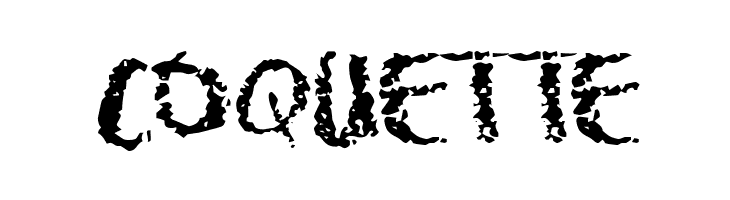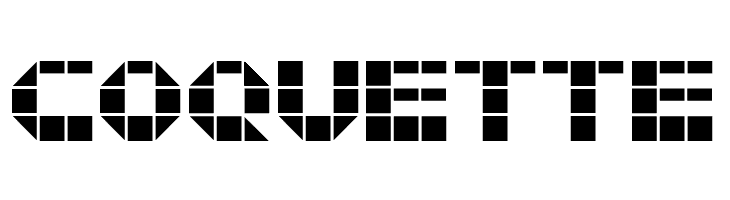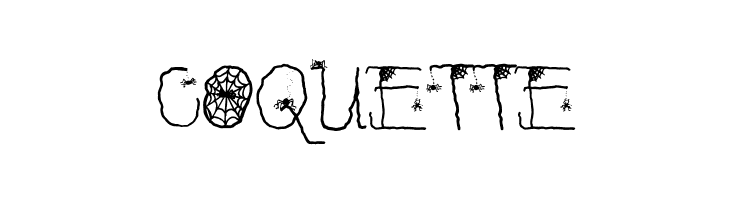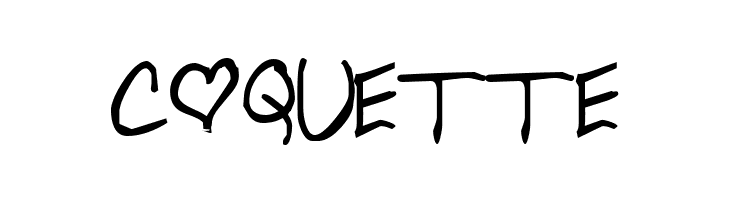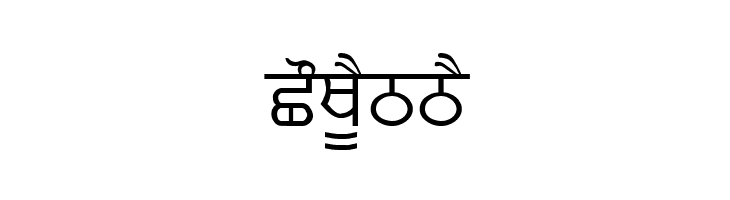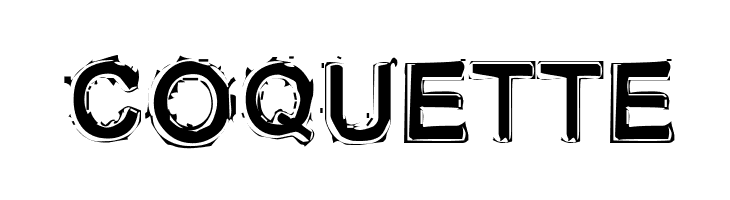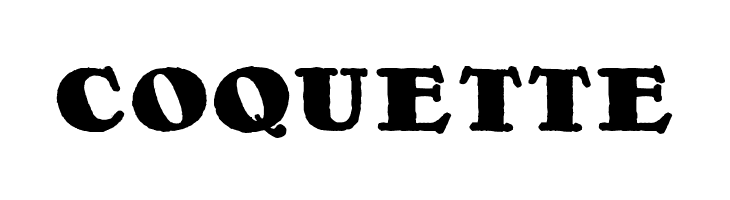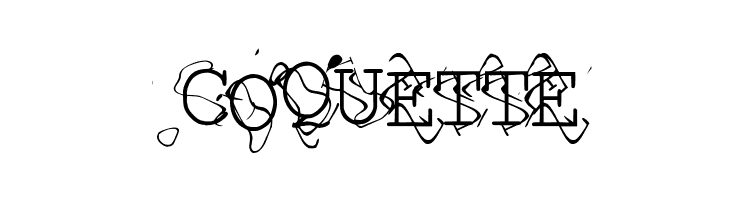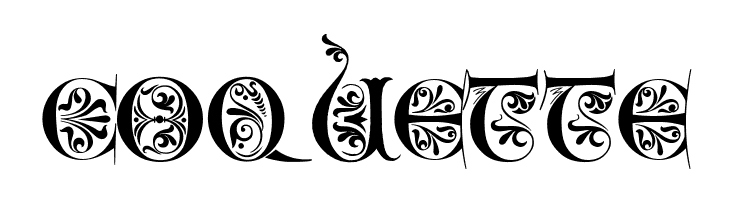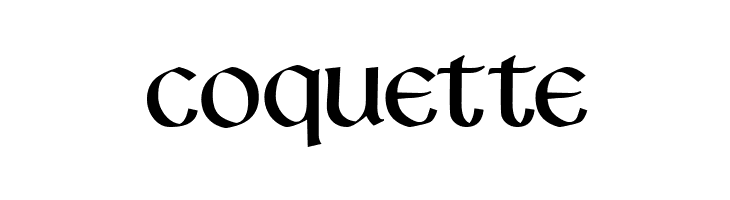
A decorative and gothic-inspired font with ornate swirls and curls.
A modern, geometric font with a sleek, futuristic design.
A whimsical font with mouse-themed uppercase and cheese-themed lowercase letters.
A decorative, fragmented font with abstract, distorted letterforms.
An ornate, decorative font with intricate flourishes and vintage charm.
A modern, geometric font with rounded edges and a monospaced style.
A decorative, gothic-style font with thorn-like extensions and high contrast strokes.
Hand-drawn font with unique cat face illustrations for each character.
A bold, distressed font resembling lipstick smudges, perfect for dramatic and playful designs.
A bold, decorative font with chaotic, liquid-like embellishments.
A bold, distressed font with a vintage, grunge aesthetic.
A bold, distressed font with a grunge effect, perfect for dynamic and edgy designs.
Hand-drawn cartoon superhero characters as font glyphs.
A calligraphic font with elegant, flowing characters and a dynamic style.
A playful, music-inspired font with bold, rounded shapes and decorative accents.
A futuristic, geometric font with rounded edges and a modular design.
Bold geometric numerals paired with clear, functional media and utility icons.
A bold, distressed stencil-style font with rugged, uneven characters.
A playful font with bold letters and cartoon-style cats integrated into each character.
A whimsical, decorative font with playful illustrations integrated into each letter.
A playful font with snails atop bold, rounded characters.
A decorative font with horse silhouettes integrated into each letter.
A whimsical font featuring letters adorned with baby shoes, perfect for playful designs.